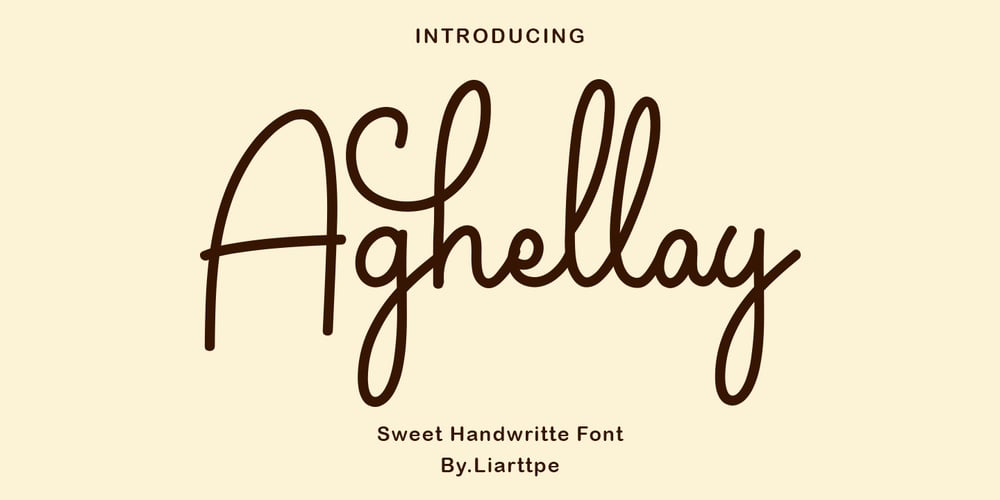
Aghellay Font Family was designed by Ali Sifak Muftari and published by Liartgraphic. Aghellay contains 1 styles and family package options. Meet our newest product, we call this product Aghellay font. Aghellay font are cute typeface fontWhit a uniqe touch and assertive. Aghellay font is very nice to use on: fashion magazine, logos, ,and photography, landing page, fliyer.What’s includes- multilingual support- alternate- ligatureAli Sifak Muftari